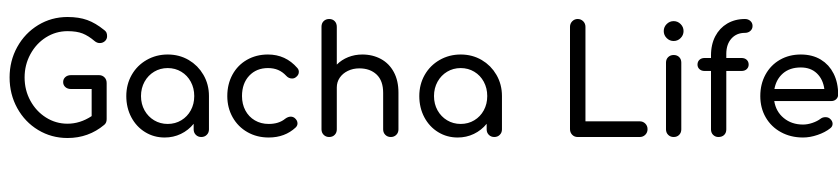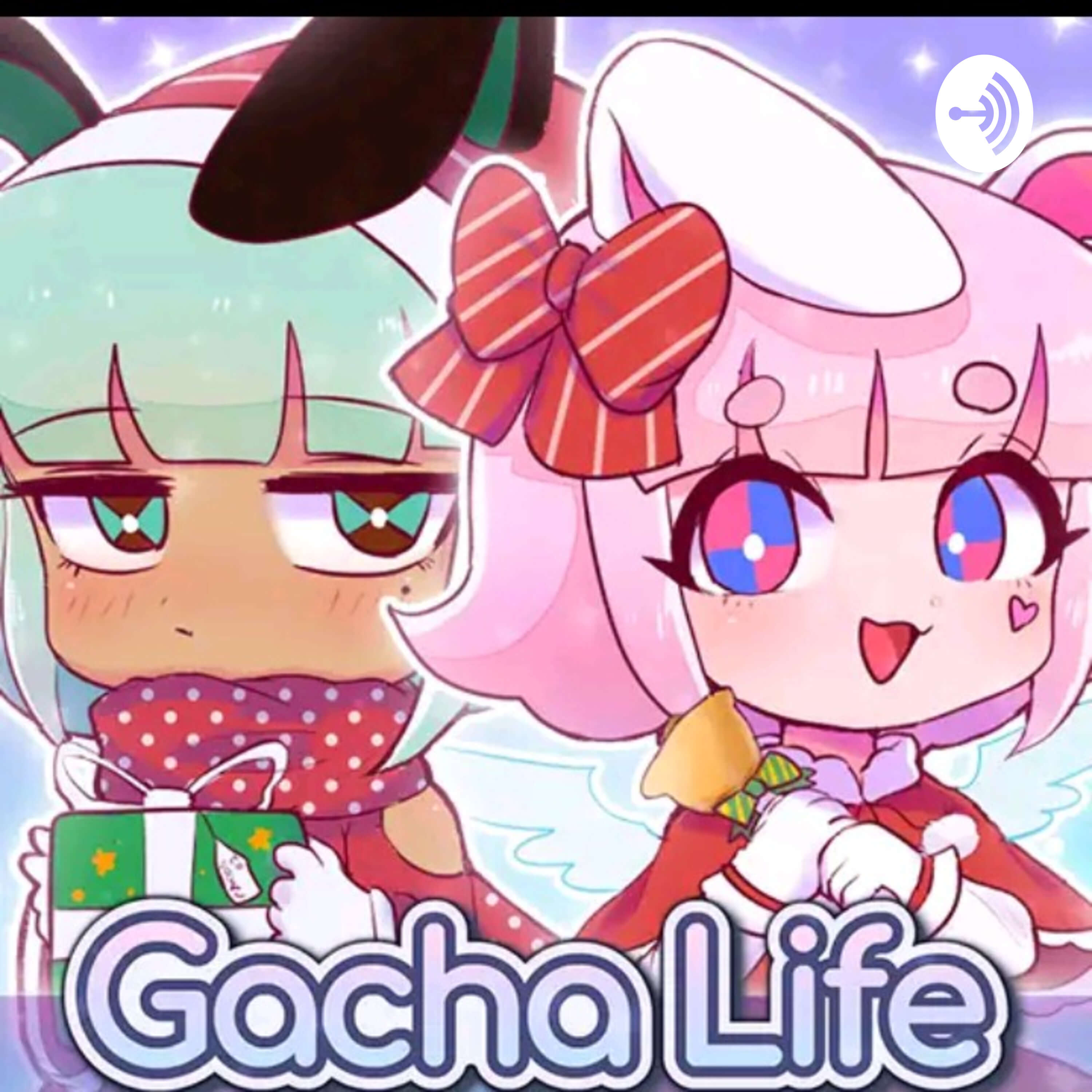
Gacha Life Font
Fonts in UseGacha life is a mobile game that allows players to create anime-style characters and dress them up with different outfits and accessories. It was developed by Lunime, a small independent game development studio based in California, United States.
The game logo utilizes Comfortaa Bold, a font crafted by Johan Aakerlund. Comfortaa is a family of rounded sans-serif fonts that come in three different weights. It is distributed under the SIL Open Font License and can be downloaded at no cost from the Fonts Used Section.